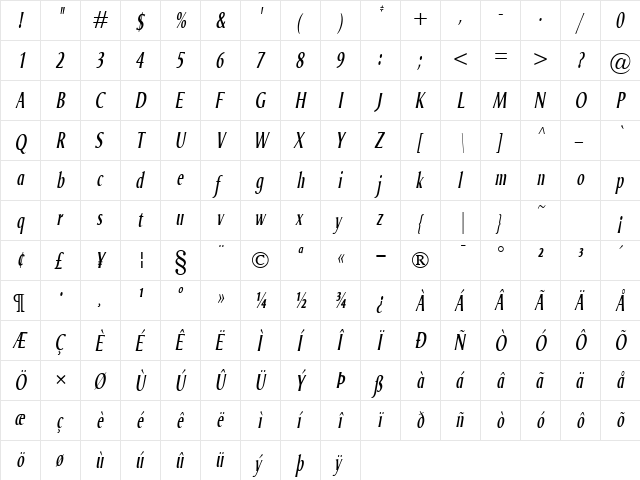
Odense Compr Italic
Design Context for Odense Compr Typeface
Odense Compr offers clean, dependable letterforms without strong stylistic allegiance, making it a practical choice for designers who need flexibility. Its italic angle brings a sense of urgency and motion to the letterforms.
Pro Tip: Use Odense Compr for emphasis, pull quotes, and subheadings where its slanted energy can add rhythm to the layout.